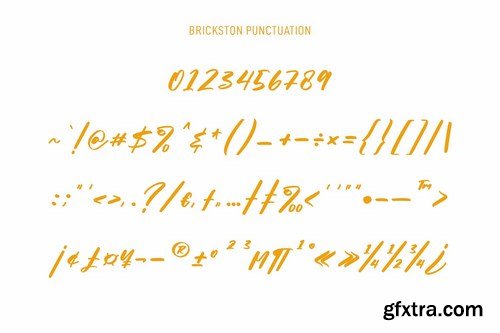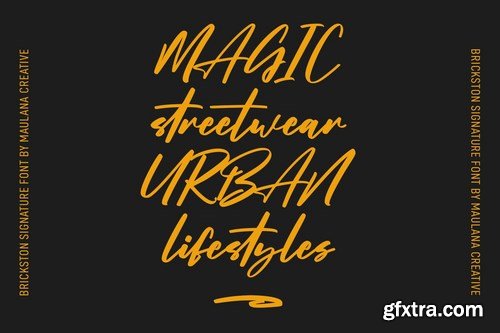
Brickston is a Fancy casual signature script font. With regular contrast stroke, slanted and fun character with a ligatures and extra swash plus a bit lowercase alternates. To give you an extra creative work. Brickston font support multilingual more than 100+ language. This font is good for logo design, Social media, Movie Titles, Books Titles, a short text even a long text letter and good for your secondary text font with sans or serif. Make a stunning work with Brickston font.